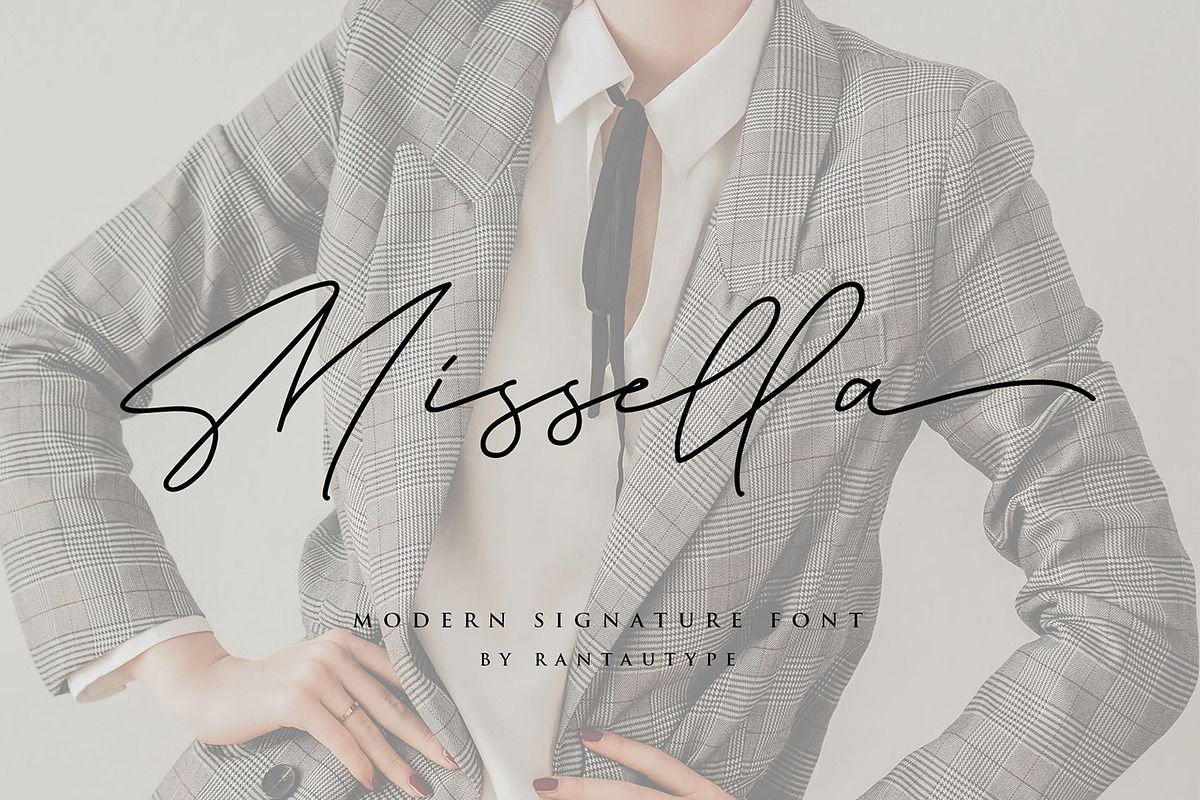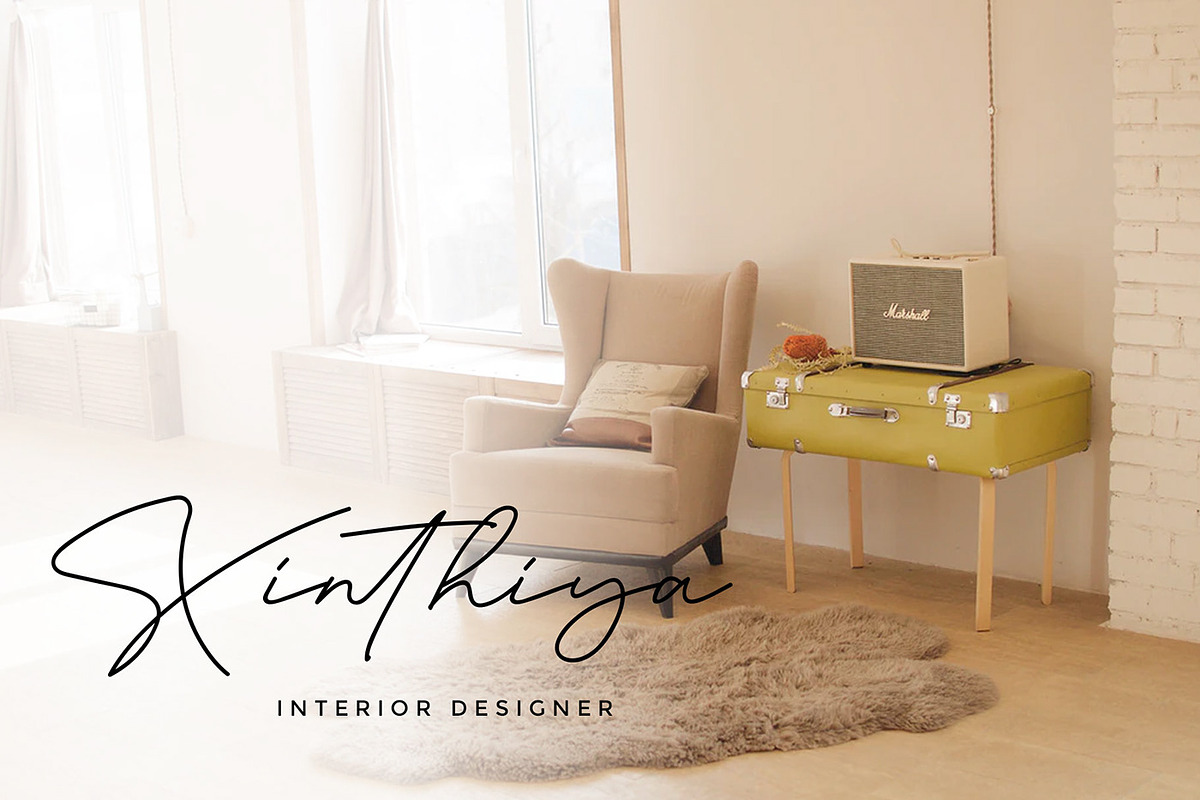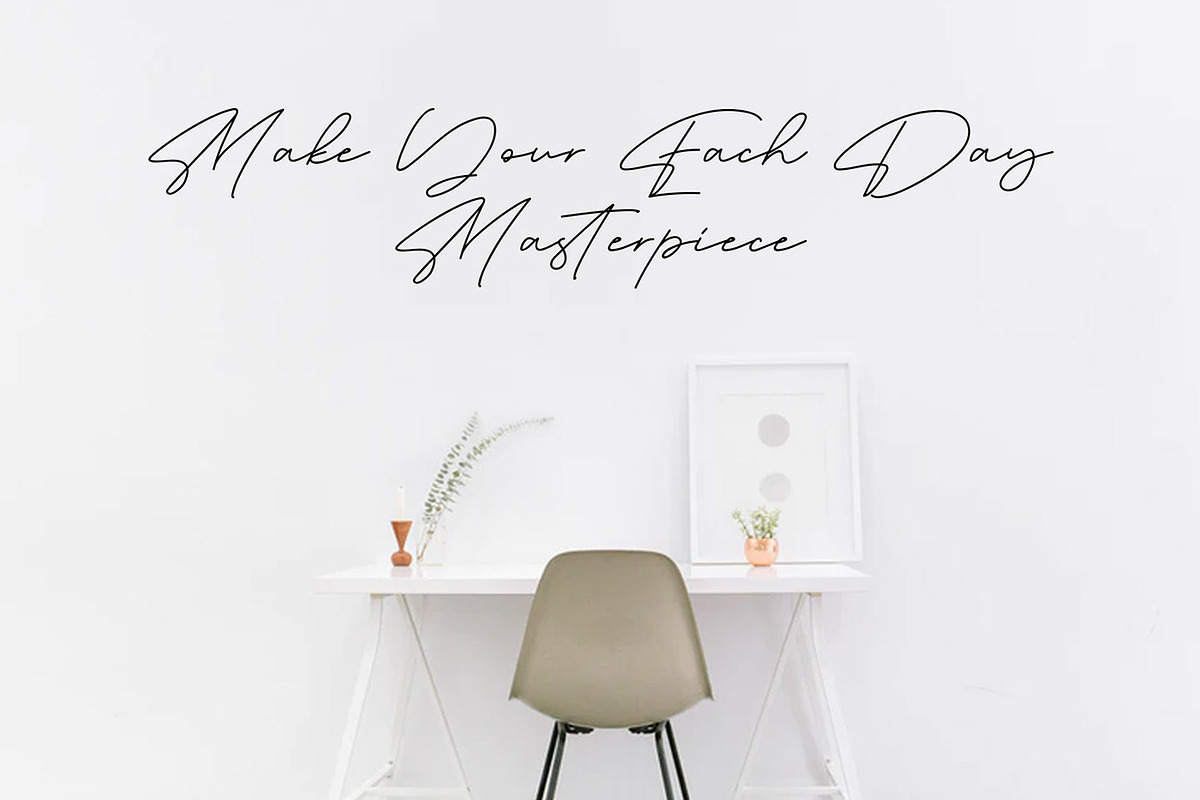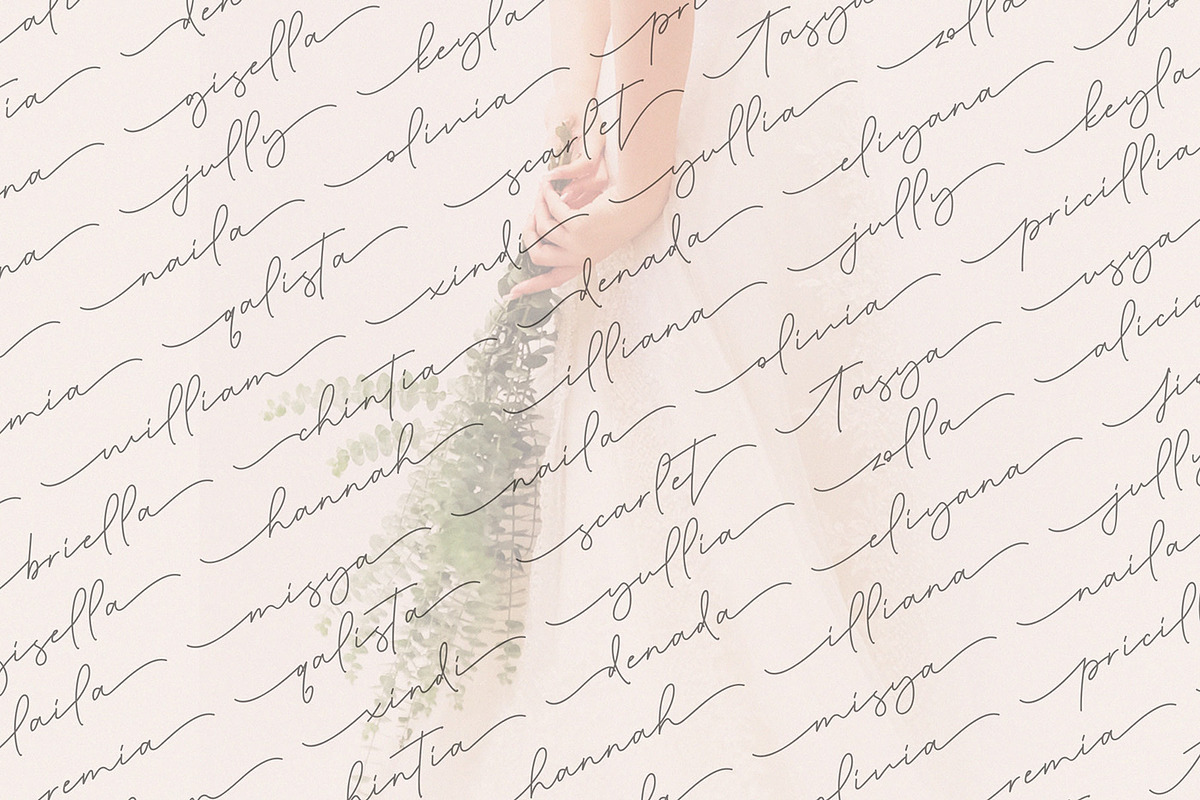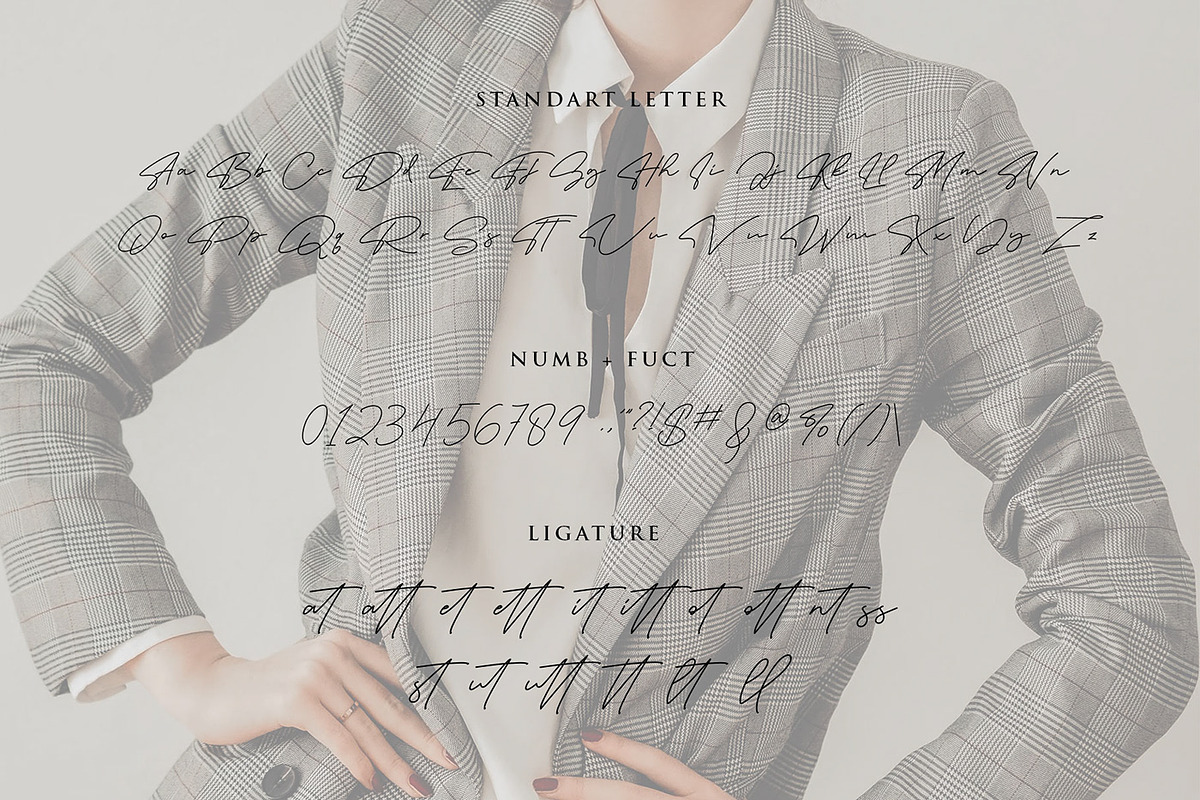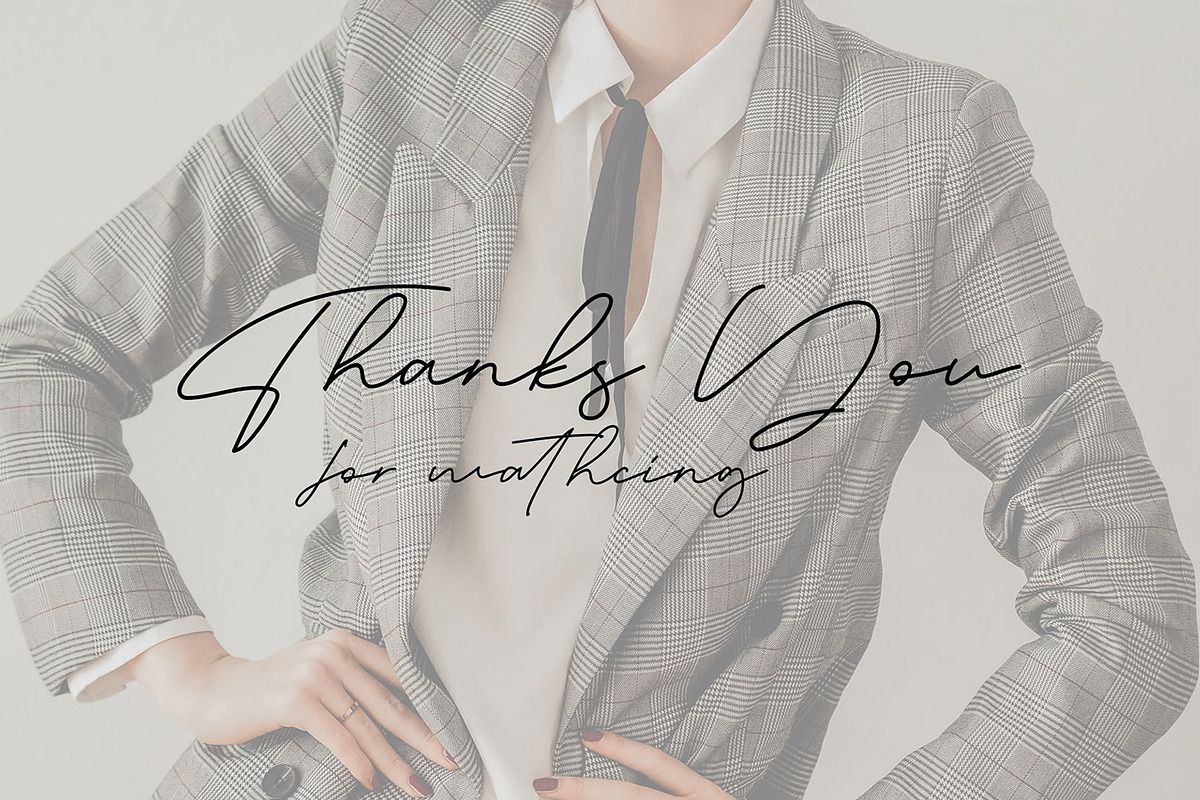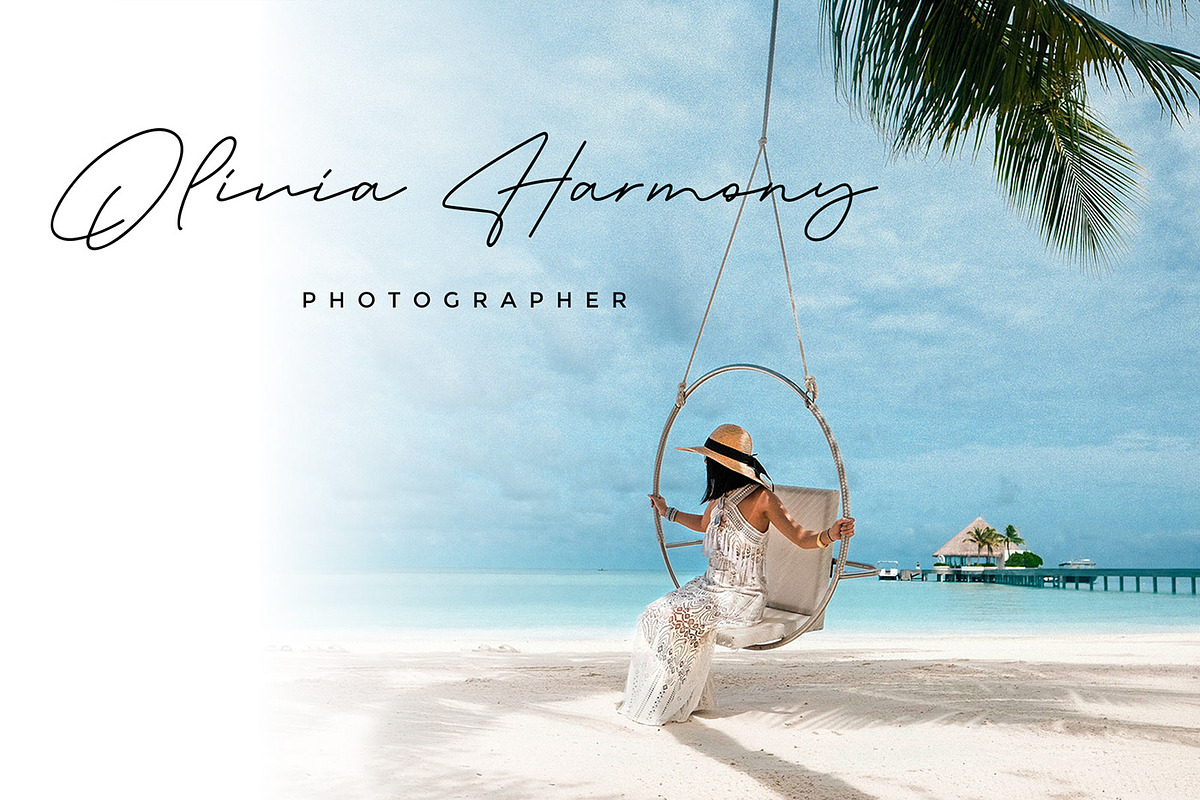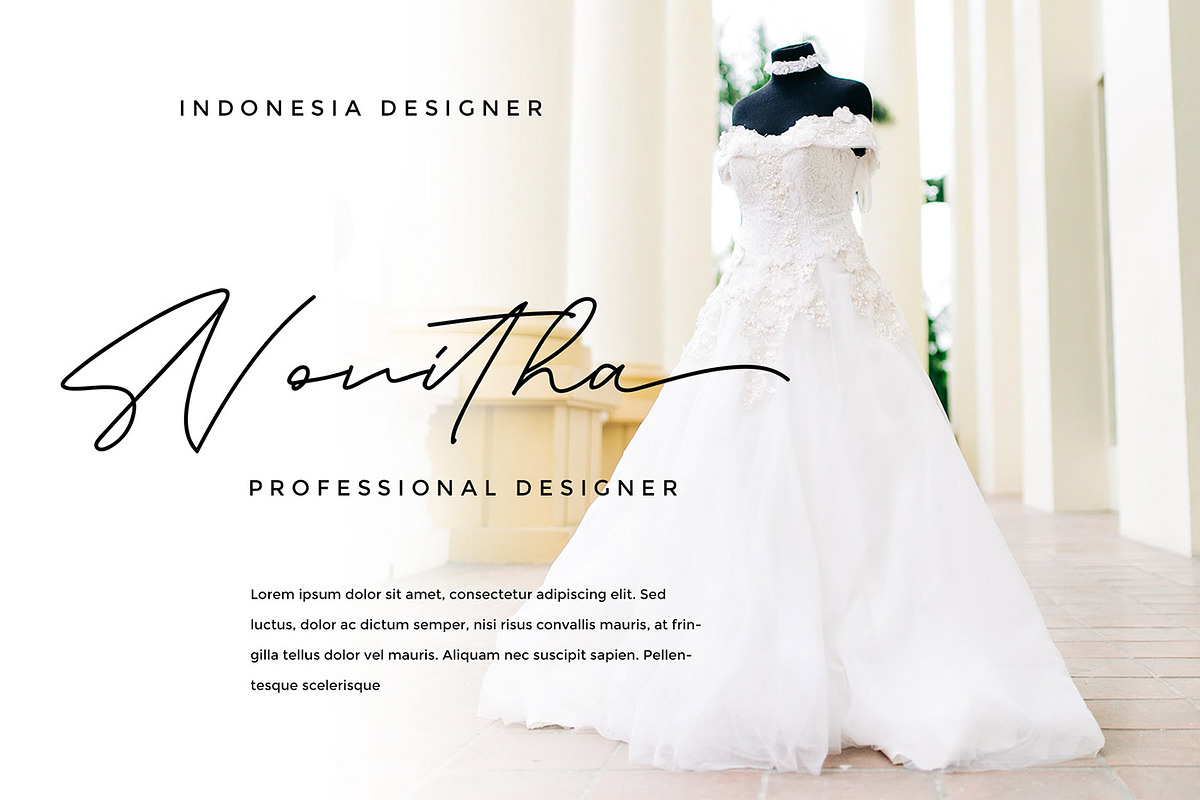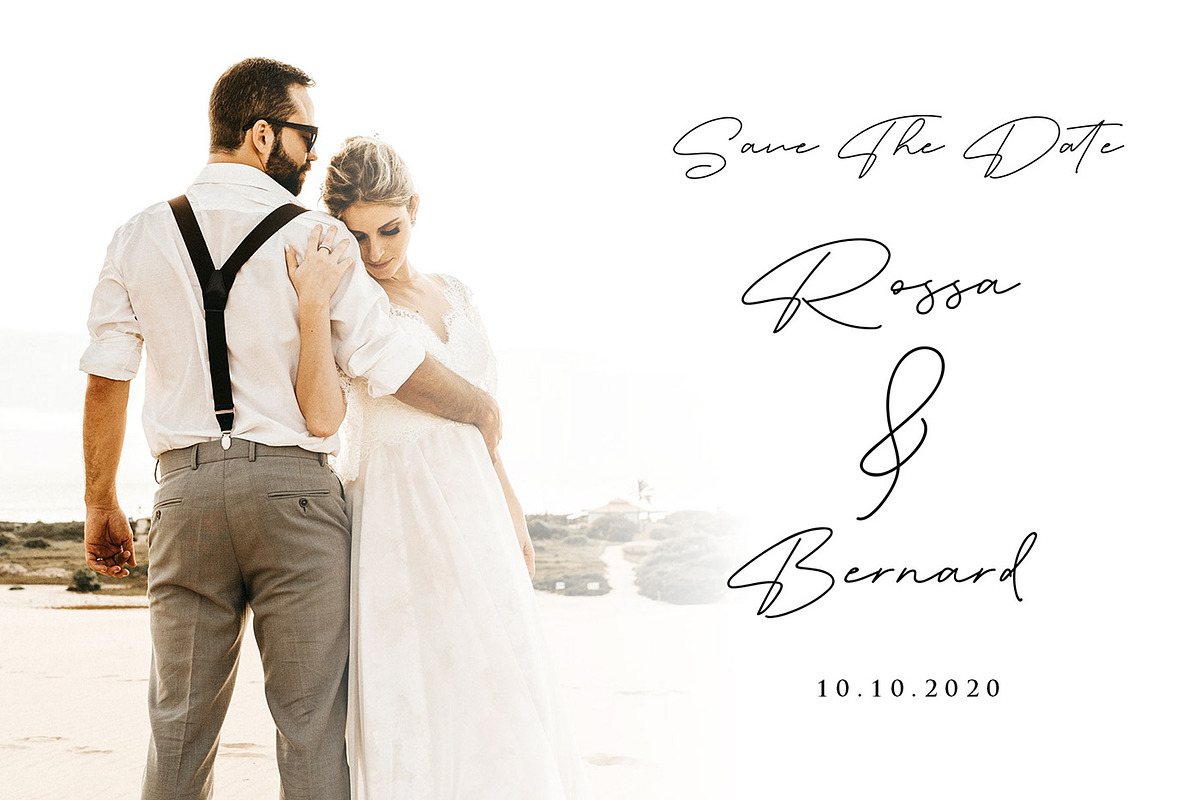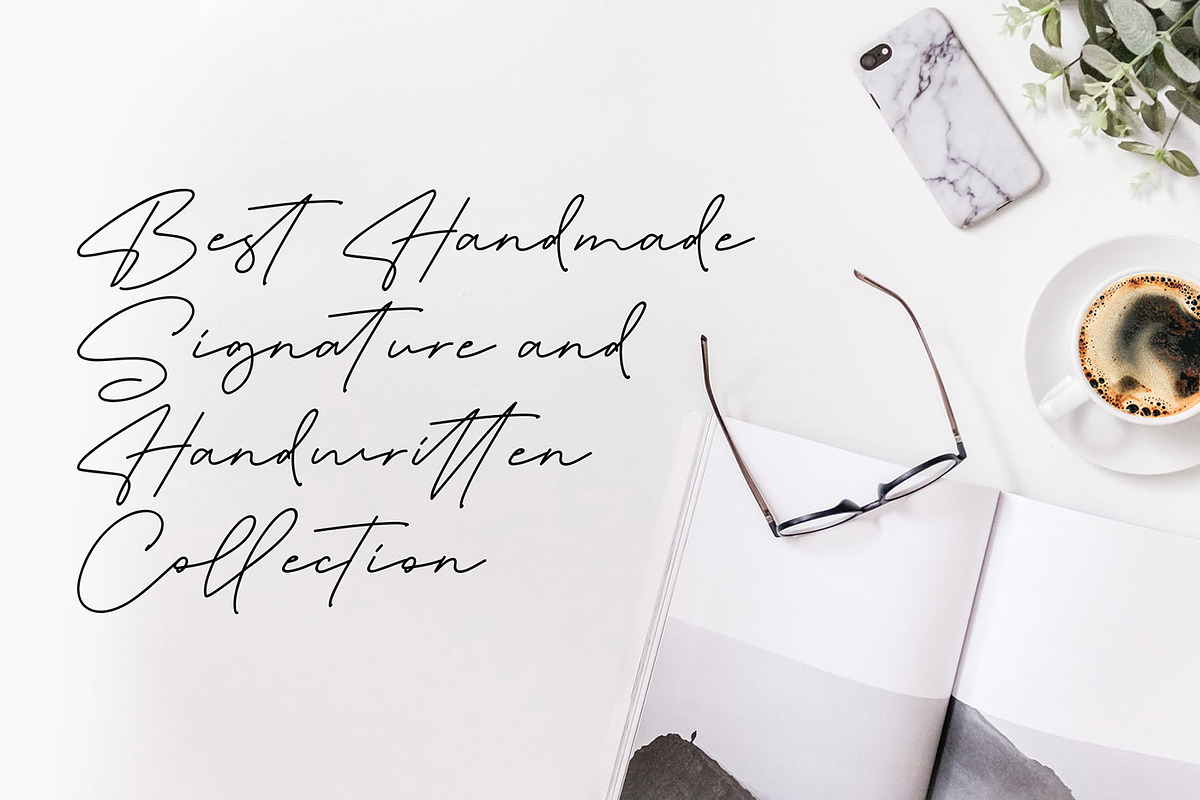
Missella - Handwritten Font
Hi Ladies and Gentleman ! Proudly present Another signature font “Missella”. This font reflects a elegant women, which can be interpreted professional. I keep this font looks elegant, classy, readable, stylish, catchy and easy to use. Missella is the great choice for watermark on photography, signature or signature logo design, quotes, album cover, business card and many other design project. Missella is here to make your work to high level!!!
- Alternate and ligature